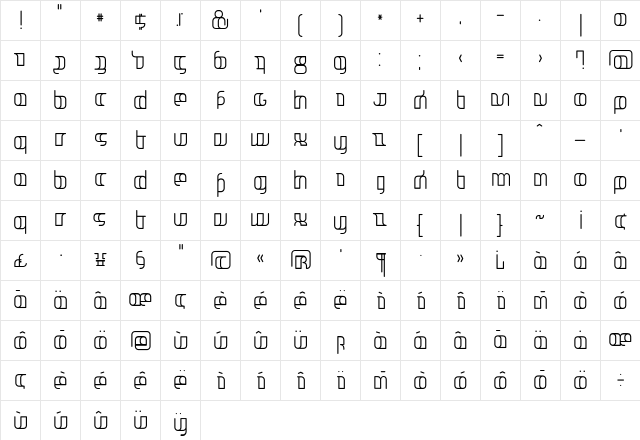
Jakone Condensed
Design Context for Jakone Typeface
Jakone is a composed and adaptable typeface that performs quietly and consistently across a wide range of design contexts. The condensed width makes it efficient for tight spaces without sacrificing legibility.